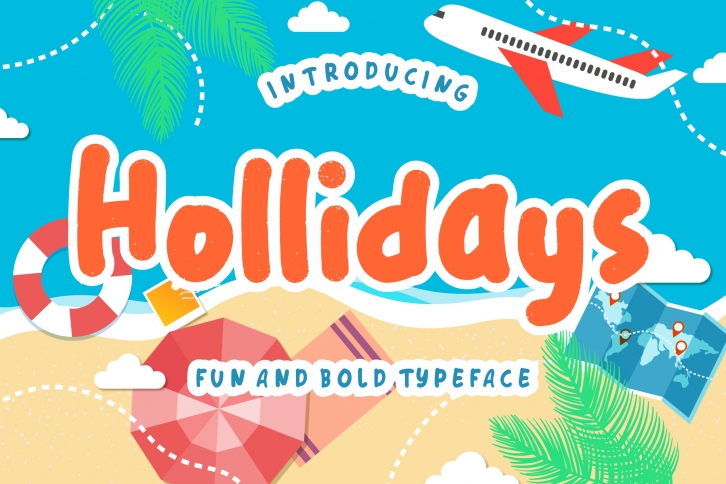
Hollidays Fun Children Typeface is a beautiful font that was designed by Creatype Studio. It's a great choice for designers and creatives who need such a font. It was released on September 11, 2019 and the file size is 17.65 MB. Hollidays Fun Children Typeface may give a more youthful, expressive and casual look to your project. It is a very beautiful, refined, elegant, and high-quality font.